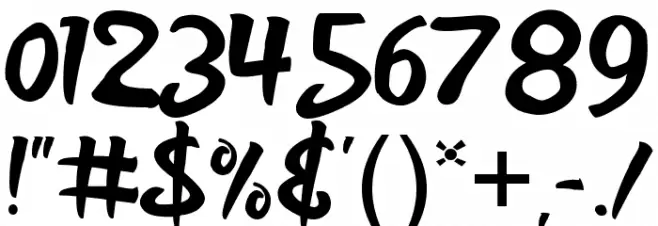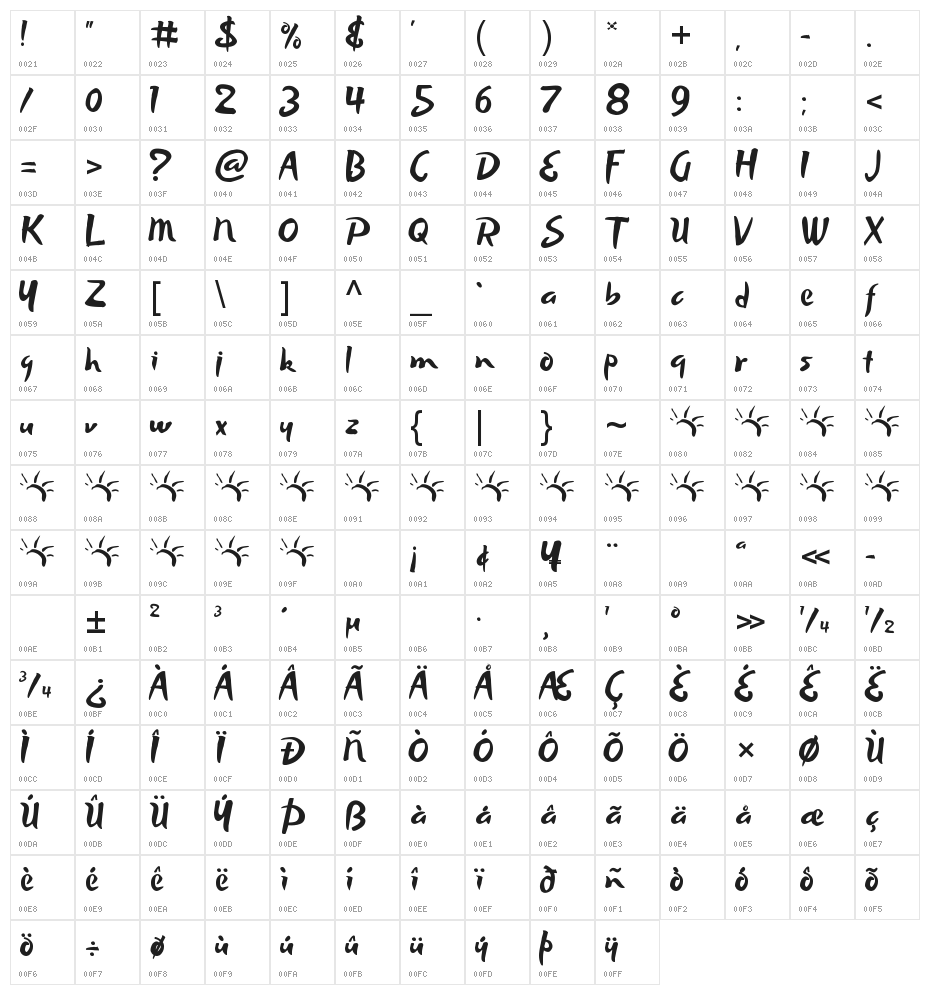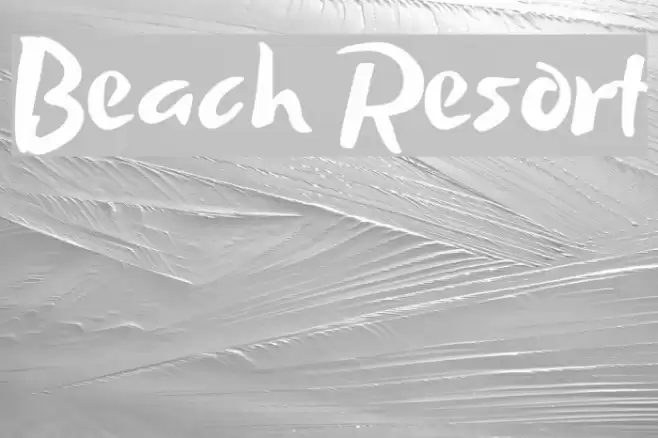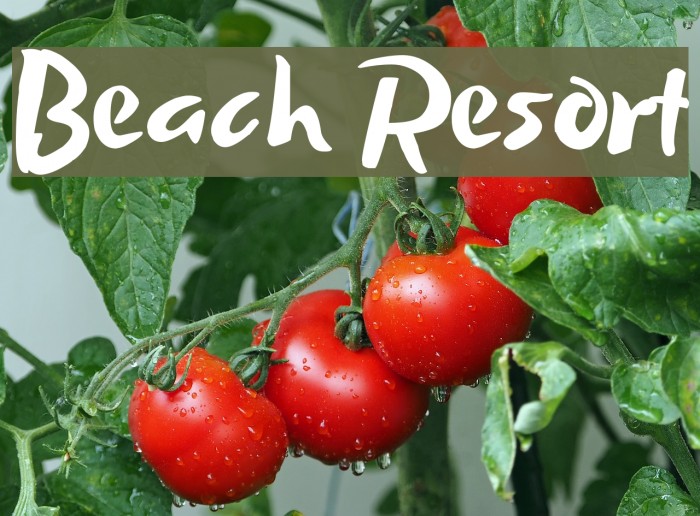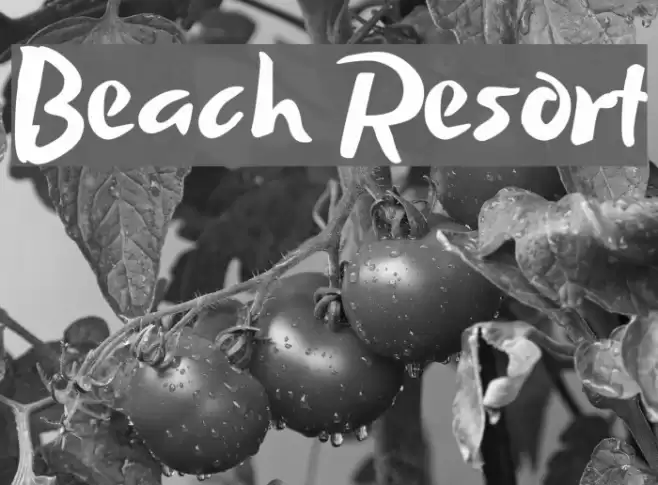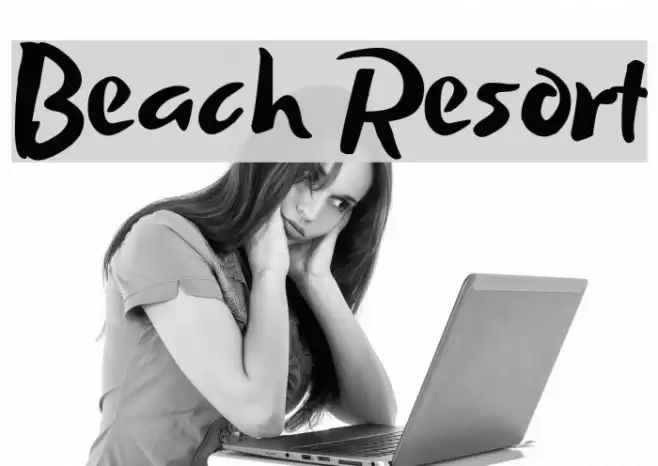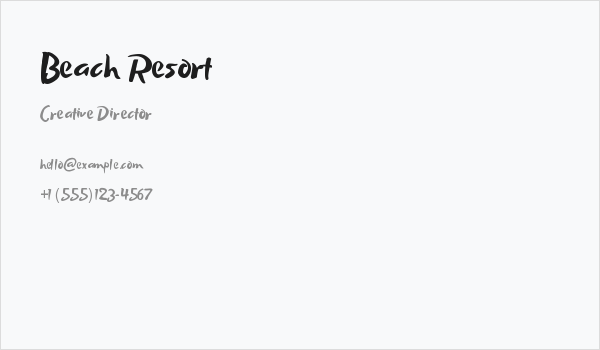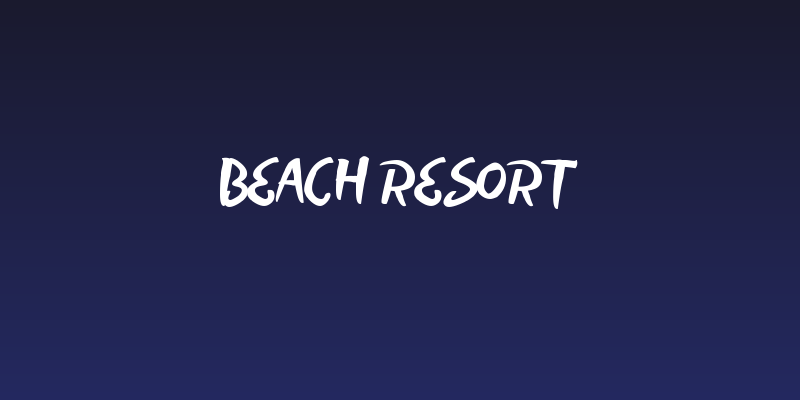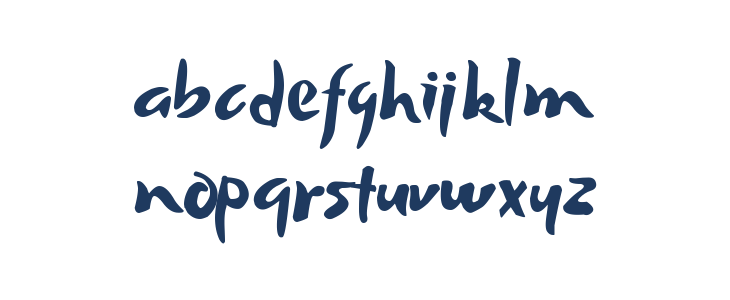
Beach Resort Font
Beach Resort Description
This font exudes a casual and playful vibe, reminiscent of handwritten script with a bold and energetic flair. The letters are slightly slanted, giving a dynamic and lively appearance. The strokes are thick and consistent, with smooth curves and rounded edges that add to its approachable and friendly nature. The uppercase and lowercase letters maintain a cohesive style, while the numbers and special characters blend seamlessly with the overall design. This font is perfect for projects that require a personal touch or a sense of fun and creativity.
| Proposed Projects | Ideal for greeting cards, invitations, branding for casual or creative businesses, and social media graphics. |